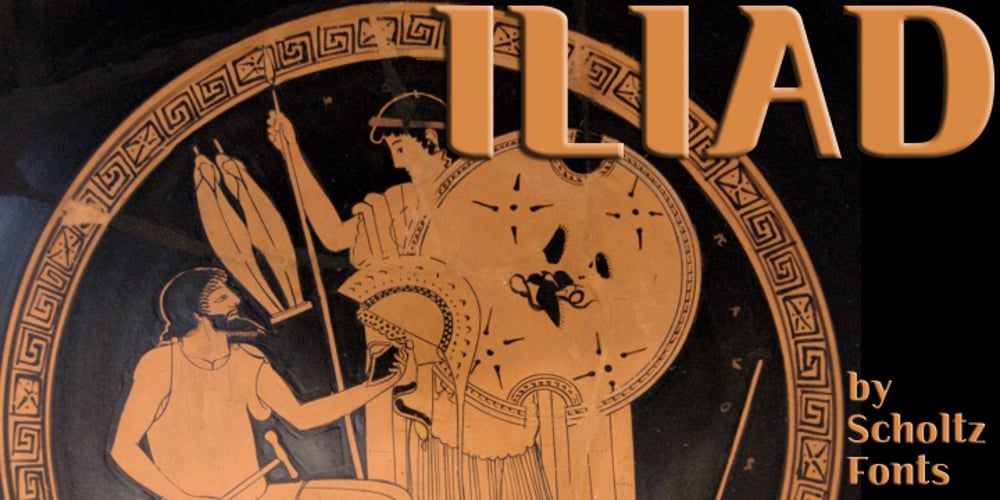
Iliad
Iliad font
Iliad Font Family was designed by Anton Scholtz and published by Scholtz Fonts. Iliad contains 1 styles and family package options. Iliad was designed to bridge the gap between traditional serif faces and modern humanist fonts. It uses a gentle, traditional, partial serif combined with a subtle curving of many of the “corners” in the characters. The combination of these two elements makes it decidedly contemporary yet it retains the readability that is associated with more traditional typefaces. The contemporary look is enhanced by a gentle tapering and shortening of the terminals and by less dramatic shifts in stroke width than is found in traditional typefaces. The lowering of the midline provides just a hint of “moderne”. It has carefully crafted spacing and kerning, making it easy to use in any display setting. It also includes all punctuation, symbols, special characters and diacritical marks.